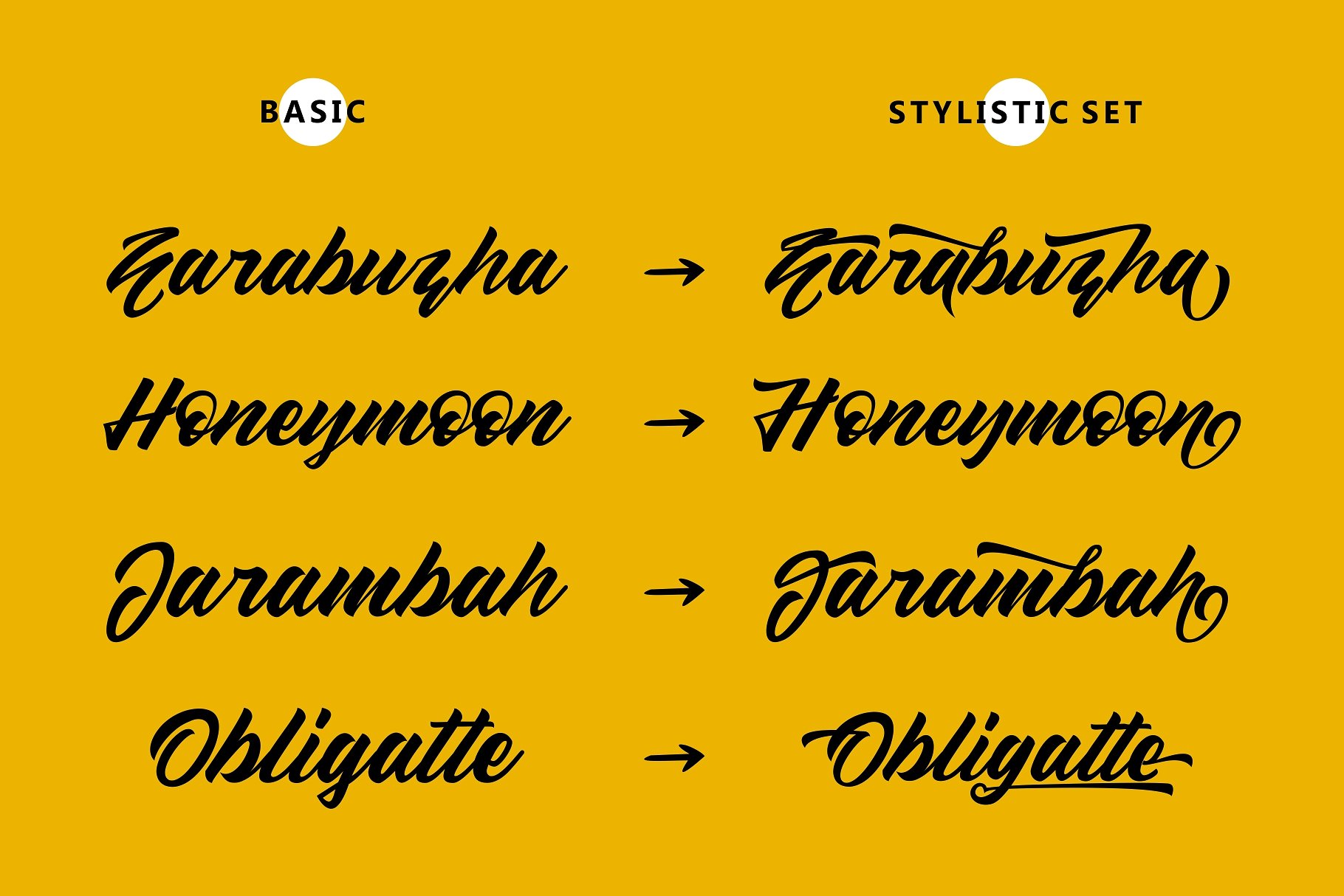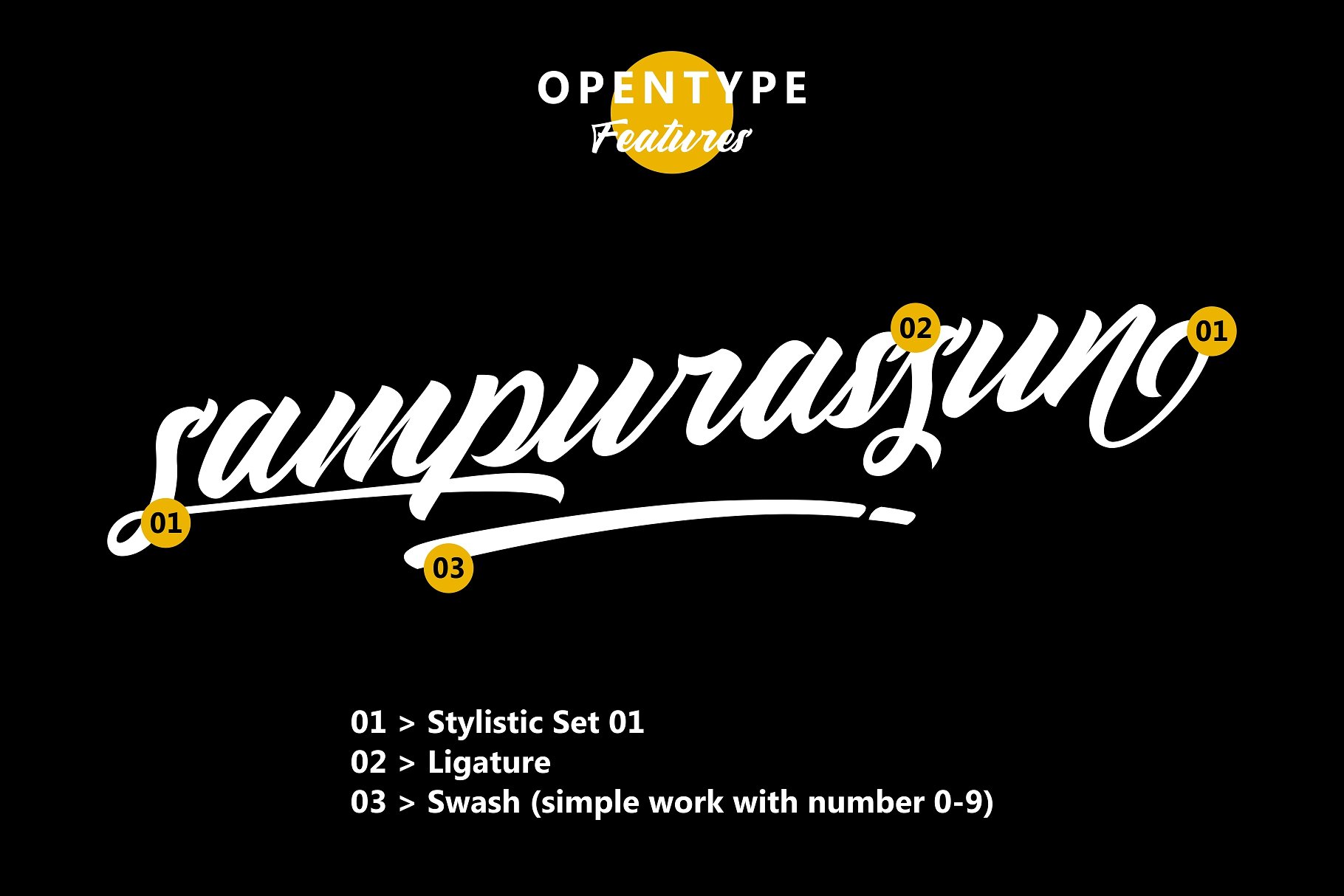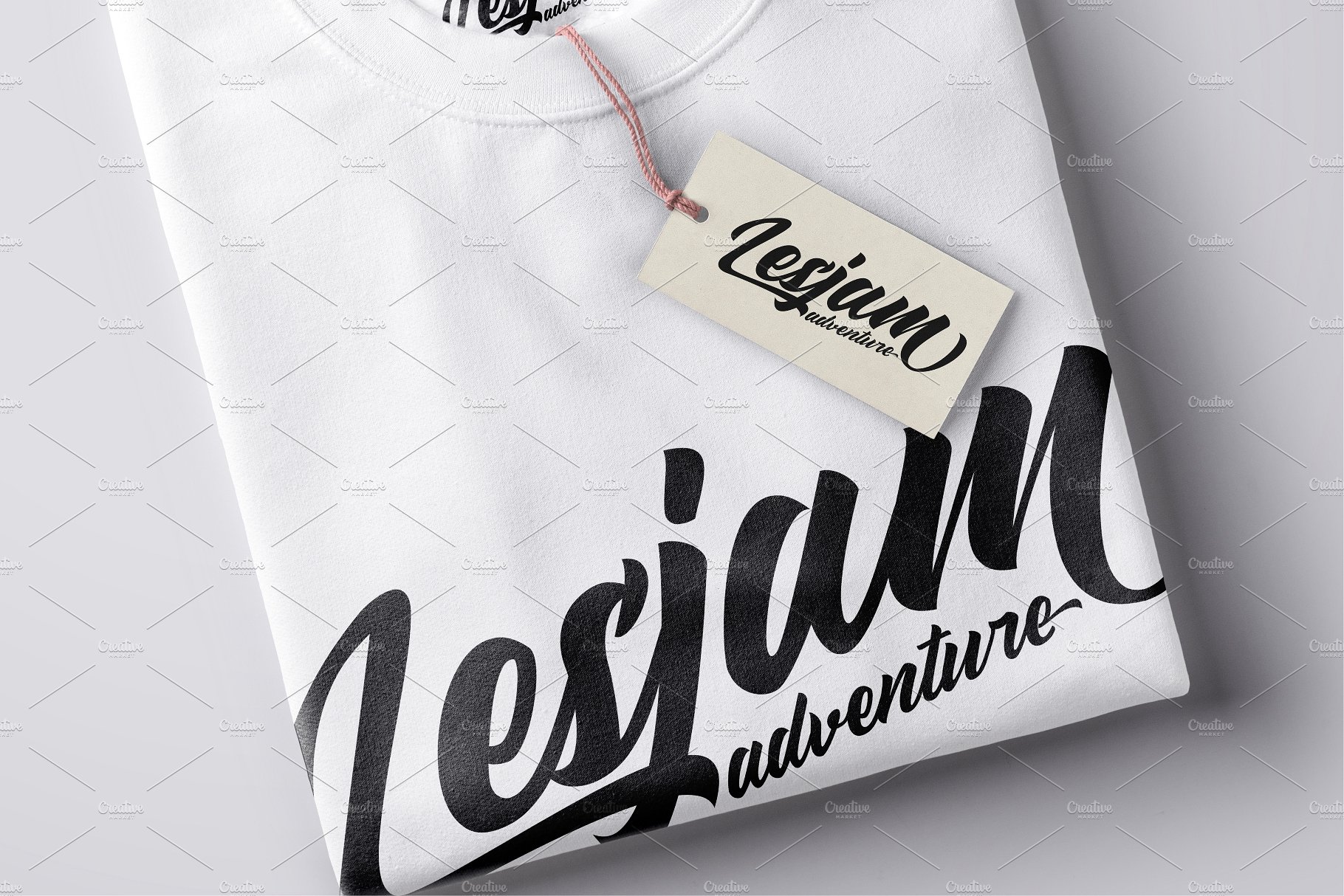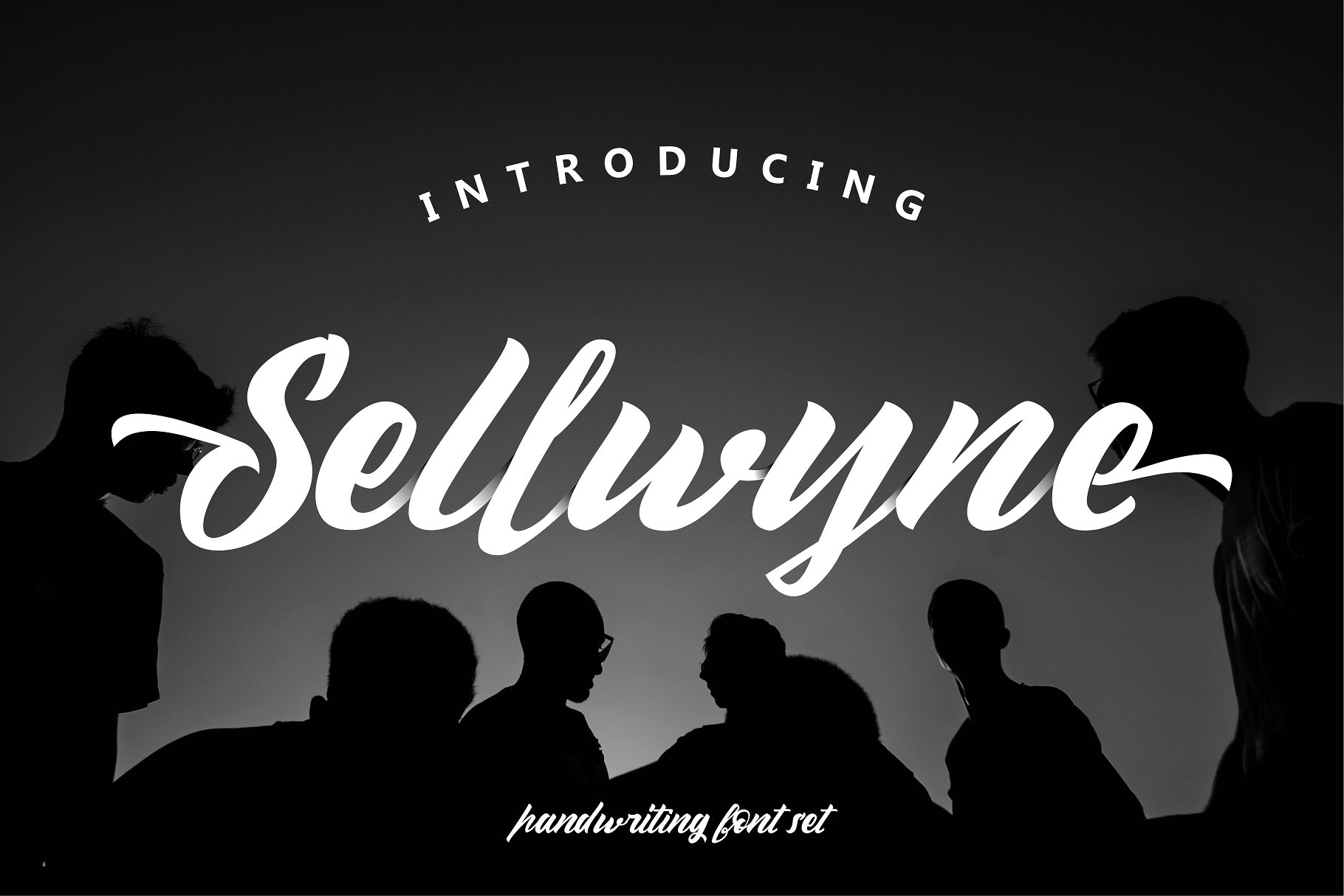
Sellwyne Script Font
This is an handwritten script font based on the expression of real handwriting, lets you transform type into an exciting and beautiful piece of work. Combine all font-styles the way you want. Introducing Sellwyne Font.  Sellwyne designed and shared by Garisman Std. You can create handlettering easily using this font. In addition, this font is very suitable for design t-shirts, branding projects, wedding designs, social media posts, advertisements, product packaging, product, and logo. designs, labels, photography, watermark, invitation, stationery and any projects that need handwriting taste.